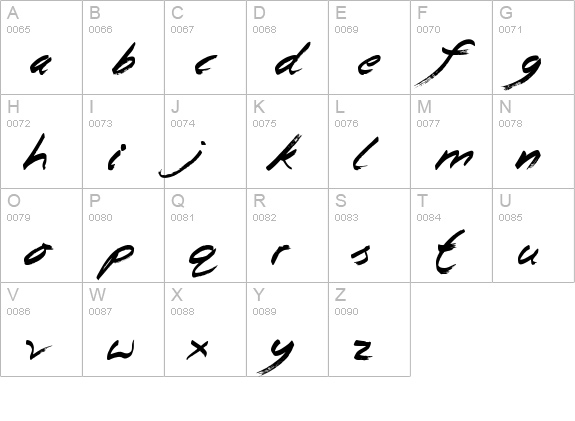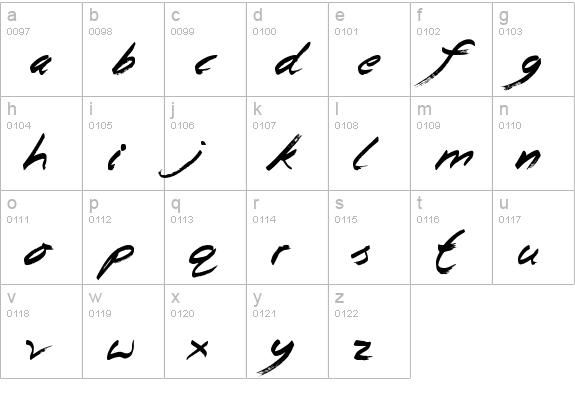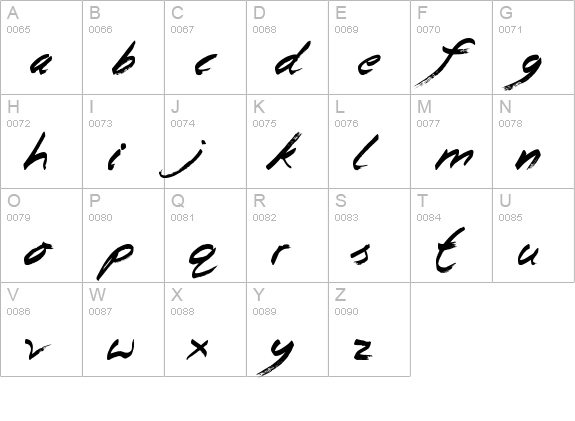
Manuscripts Font Details
Introducing Manuscripts Font, a captivating and versatile typeface that effortlessly combines elegance with a touch of modernity. This stunning font is perfect for any design project, from branding and advertising to invitations and editorial layouts. Manuscripts Font boasts a unique and distinctive appearance, with its delicate strokes and intricate details that add a sense of sophistication to any design. Its graceful curves and perfectly balanced proportions create a harmonious and pleasing visual experience. This font is a true testament to the artistry of typography, with each letter meticulously crafted to perfection. Whether used in headlines or body text, Manuscripts Font ensures legibility and readability, making it a reliable choice for both print and digital media. But what truly sets Manuscripts Font apart is its accessibility. This font is freely available for download at FontsMarket.com, allowing designers, creatives, and enthusiasts alike to take advantage of its beauty and versatility without any cost. With just a few clicks, you can enhance your design projects with this elegant and timeless typeface. Whether you're working on a branding project, creating eye-catching advertisements, or designing elegant invitations, Manuscripts Font will elevate your work to new heights. Its timeless appeal and effortless charm make it a must-have addition to any designer's toolkit. So why wait? Download Manuscripts Font today from FontsMarket.com and unlock the endless possibilities it offers. Let your creativity soar and watch as your designs come to life with this mesmerizing and free font.